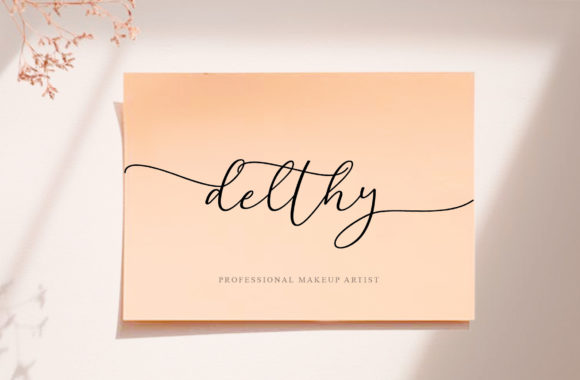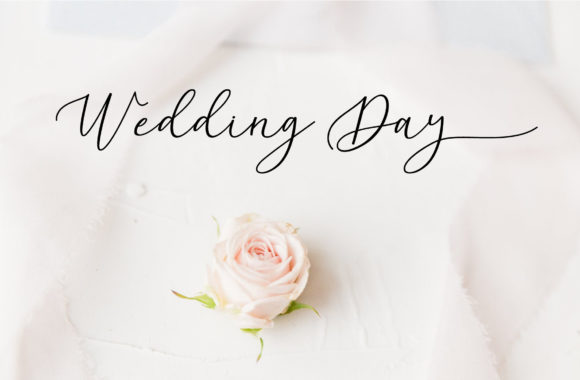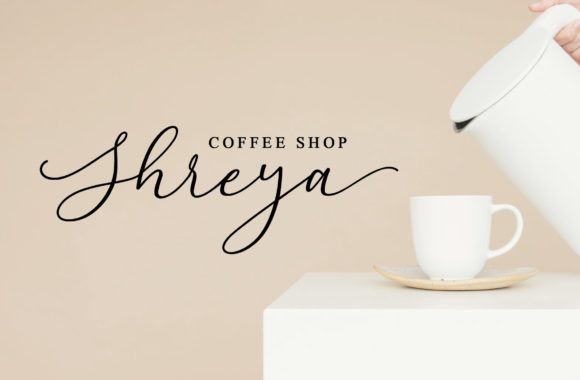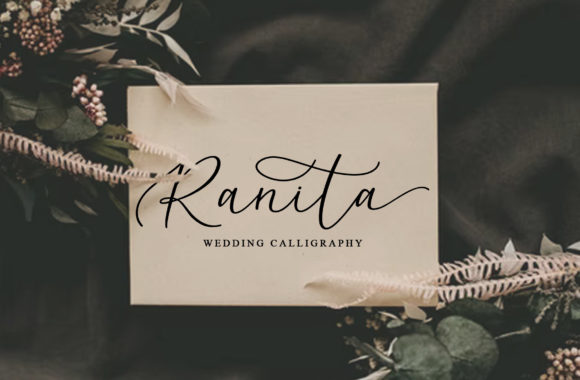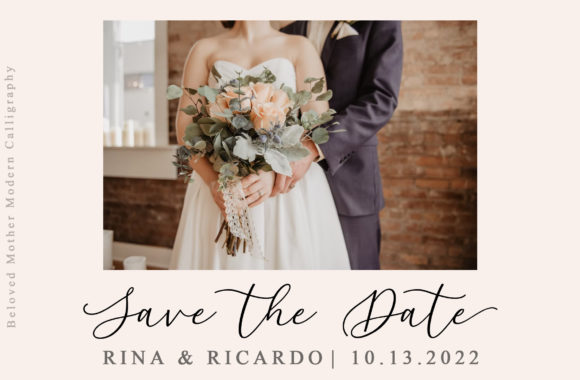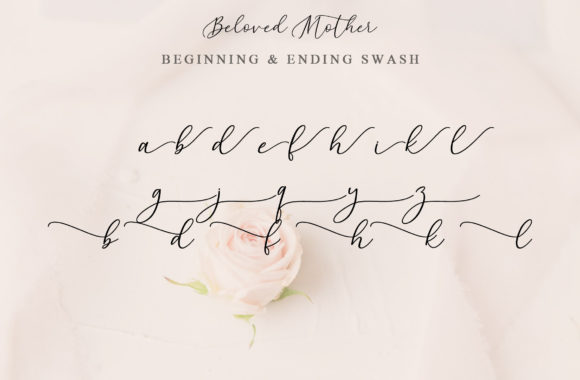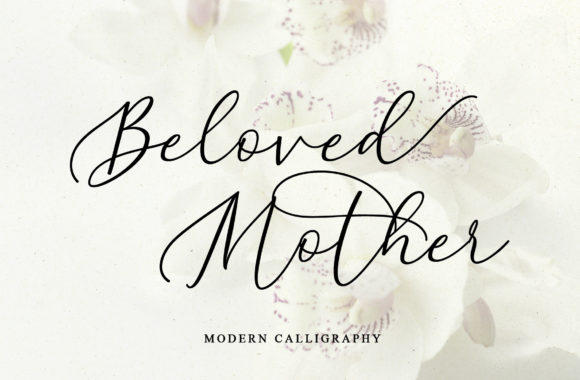
Introducing Beloved Mother Font: The Epitome of Elegance and Sophistication
In the world of typography, few fonts manage to convey the essence of elegance and sophistication as effortlessly as the Beloved Mother Font. This chic, refined script font has been turning heads with its stylish alternates and ligatures, making it the perfect match for any project that demands a touch of luxury and refinement. Whether you’re a designer looking for the perfect font to elevate your branding, a crafty individual seeking to add a personal touch to your DIY projects, or simply a typography enthusiast, Beloved Mother Font is sure to captivate you with its unique charm.
The Design Philosophy Behind Beloved Mother Font
Beloved Mother Font is more than just a collection of letters; it’s an expression of style and sophistication. Its design is rooted in the classic script fonts that have been admired for centuries, yet it incorporates modern elements that make it distinctly contemporary. The result is a font that feels both timeless and current, versatile enough to be used in a wide range of applications, from wedding invitations and luxury branding to packaging and digital media.
Key Features of Beloved Mother Font
- Stylish Alternates: One of the standout features of Beloved Mother Font is its set of stylish alternates. These variations allow designers to add nuance and personality to their text, making each piece unique. Whether you want to emphasize certain words or simply add visual interest to your layout, the alternates in Beloved Mother Font give you the flexibility to do so with elegance.
- Ligatures: Ligatures are another key feature that sets Beloved Mother Font apart. These special characters combine two or more letters into a single glyph, creating a seamless flow that enhances the overall appearance of the text. In Beloved Mother Font, ligatures are designed to be both aesthetically pleasing and highly readable, making them perfect for body text as well as headlines.
- Elegance and Versatility: What truly makes Beloved Mother Font stand out, however, is its ability to convey elegance and sophistication. Its refined strokes, balanced proportions, and exquisite details come together to create a font that feels luxurious and high-end. Yet, despite its upscale appearance, Beloved Mother Font remains remarkably versatile, suitable for use in a variety of contexts, from formal events to high-end branding.
Using Beloved Mother Font in Your Projects
So, how can you incorporate Beloved Mother Font into your projects? The possibilities are endless. Here are a few ideas to get you started:
- Wedding and Event Stationery: Create stunning wedding invitations, save-the-date cards, and other event stationery that sets the tone for a sophisticated and memorable occasion.
- Luxury Branding: Elevate your brand with a font that exudes elegance and refinement. Beloved Mother Font is perfect for logos, packaging, and marketing materials that need to convey a sense of luxury.
- DIY Crafts: Add a personal touch to your DIY projects, such as handmade cards, scrapbooking, and home decor items. Beloved Mother Font can help you achieve a professional look without compromising on the personal, handmade feel.
Why Designers and Crafters Love Beloved Mother Font
Designers and crafters alike are drawn to Beloved Mother Font for its unique blend of style, versatility, and elegance. Here are a few reasons why:
- Time-Saving: With its extensive set of alternates and ligatures, Beloved Mother Font offers a wide range of styling options, saving you time and effort in the design process.
- Professional Look: Achieve a professional and polished look without needing extensive design experience. Beloved Mother Font’s sophisticated design does the heavy lifting for you.
- Emotional Connection: Fonts have the power to evoke emotions and set the tone for a project. Beloved Mother Font, with its elegant and refined appearance, can help you create a strong emotional connection with your audience.
| Author | Fontysia |
Beloved Mother Font is more than just a font; it’s a design statement. Its chic, refined script style, complete with stylish alternates and ligatures, makes it the perfect choice for anyone looking to add a touch of sophistication and elegance to their projects. Whether you’re working on a luxury brand campaign, planning a wedding, or simply crafting something special, Beloved Mother Font is sure to exceed your expectations. With its timeless appeal and versatile design, it’s no wonder that Beloved Mother Font has captured the hearts of designers and crafters around the world.